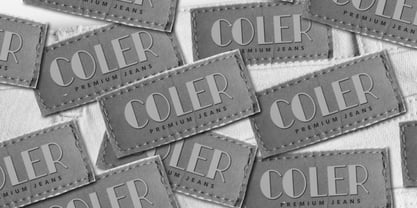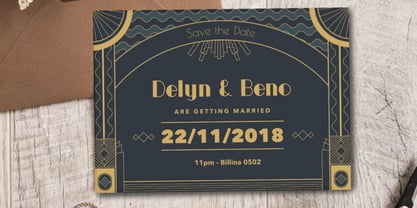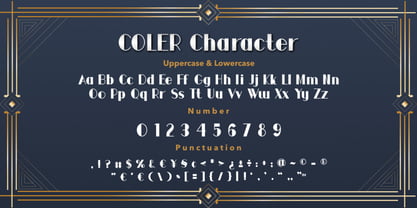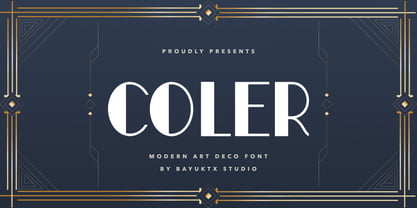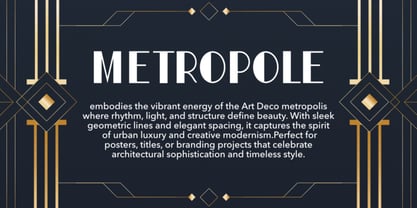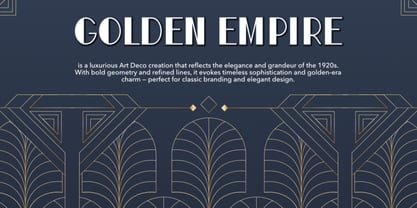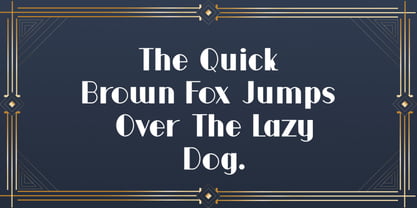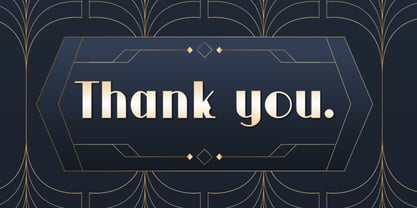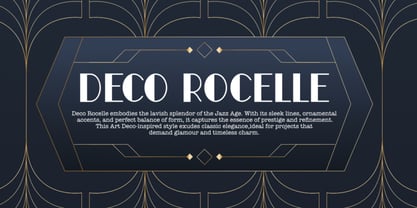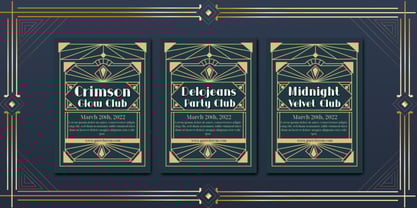
Coler
by Bayuktx
The Coler Font Family was designed by Bayu Aji Fais Mursid and published by Bayuktx. Coler contains 1 styles.
Coler Art Deco Font is a sophisticated typeface inspired by the golden age of Art Deco design. With its geometric balance, elegant lines, and luxurious letterforms, Coler brings a sense of timeless glamour and modern refinement to any creative project. This font embodies the spirit of 1920s elegance — bold yet graceful, structured yet stylish. Perfect for logos, branding, invitations, and editorial titles that seek a touch of classic luxury and architectural beauty. Each curve and line is crafted to evoke confidence, sophistication, and artistic precision. Key Features : * Uppercase & Lowercase * Numerals & Punctuation * Multilingual Support * PUA Encoded & OpenType Features Suitable For : * Luxury Branding & Logos * Posters & Editorial Headlines * Packaging & Invitations * Fashion & Lifestyle Design * Art Deco & Retro Projects With Coler Art Deco Font, your designs will radiate elegance and capture the timeless beauty of the Deco era — refined, confident, and irresistibly stylish.